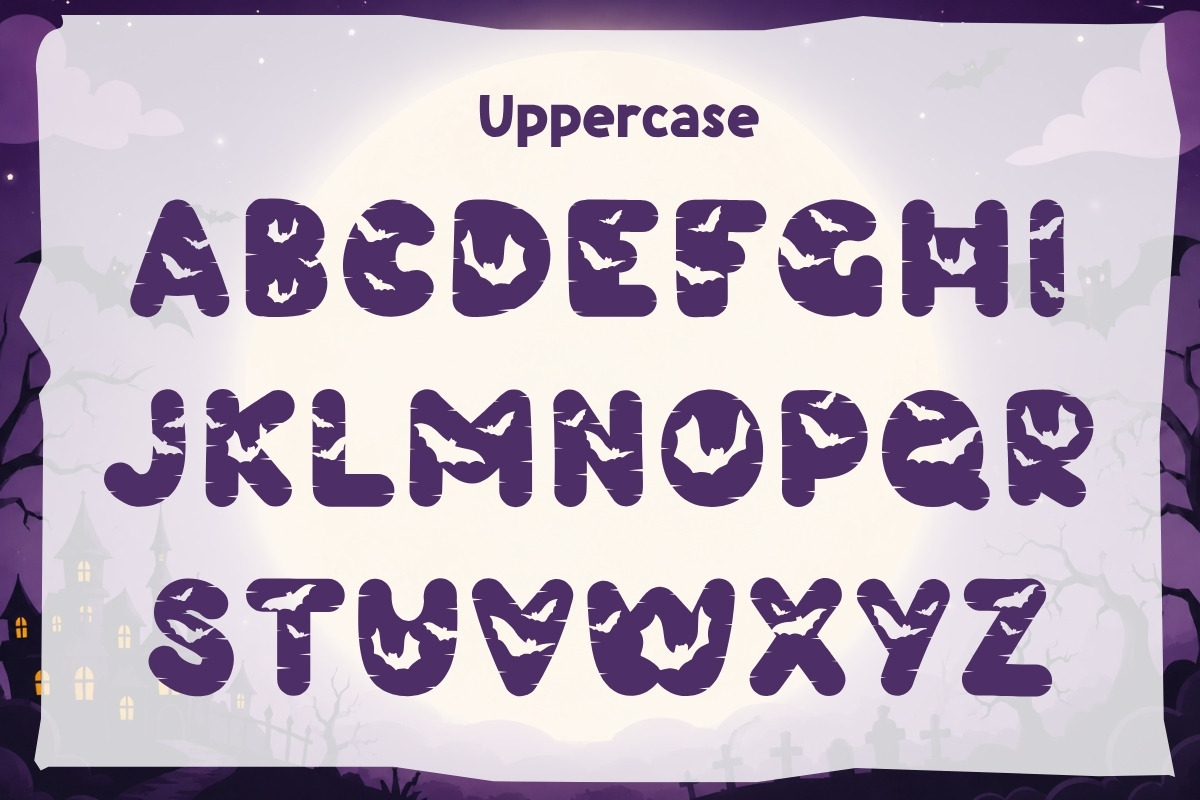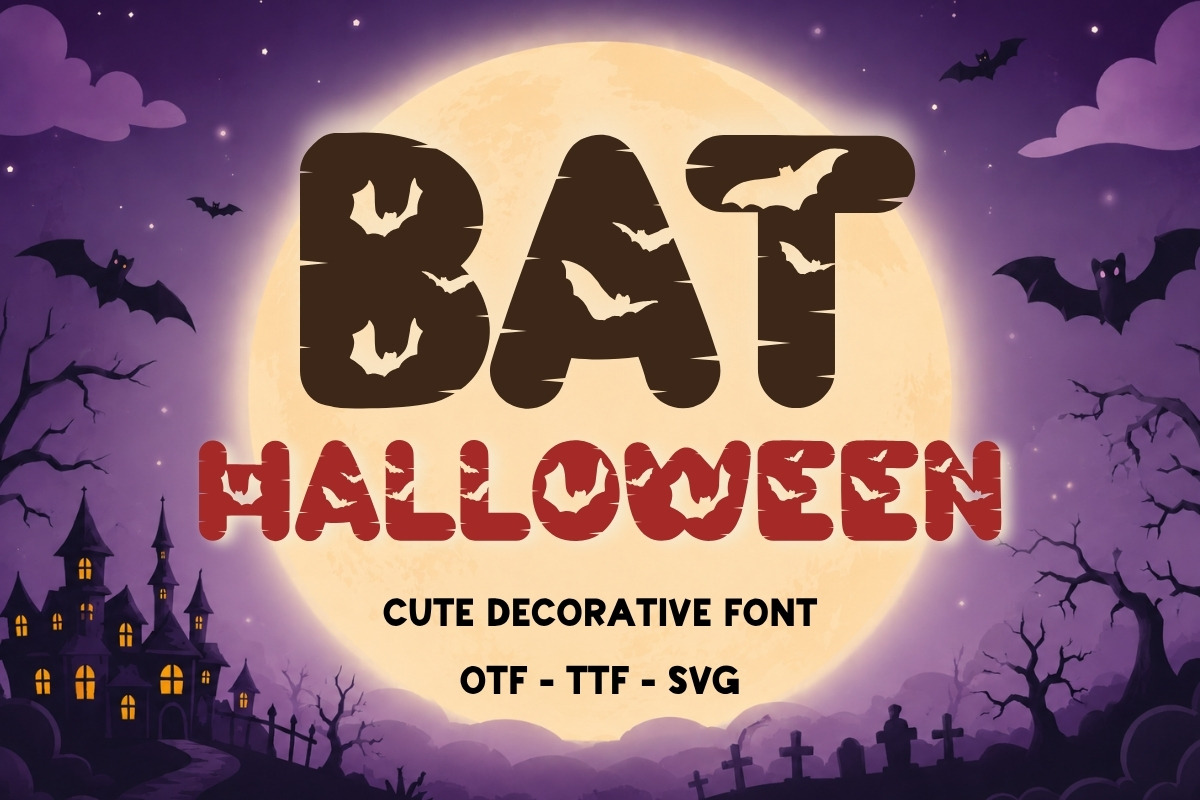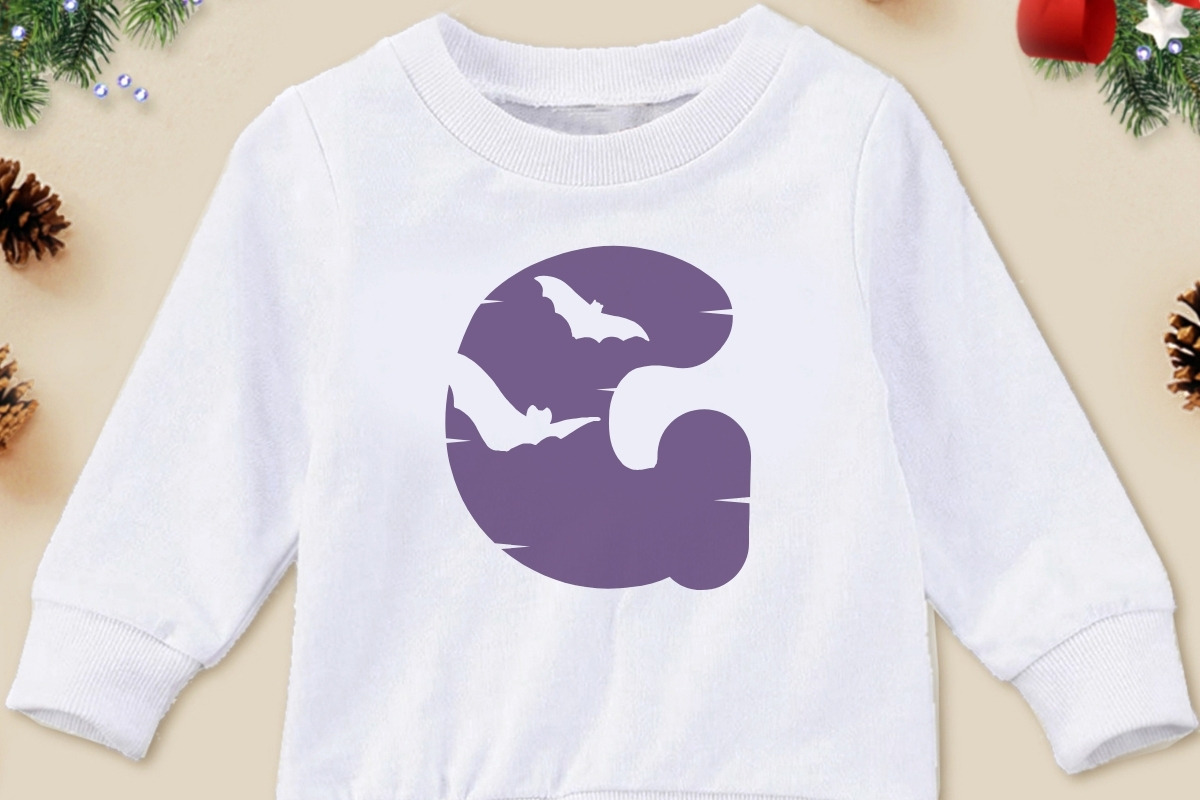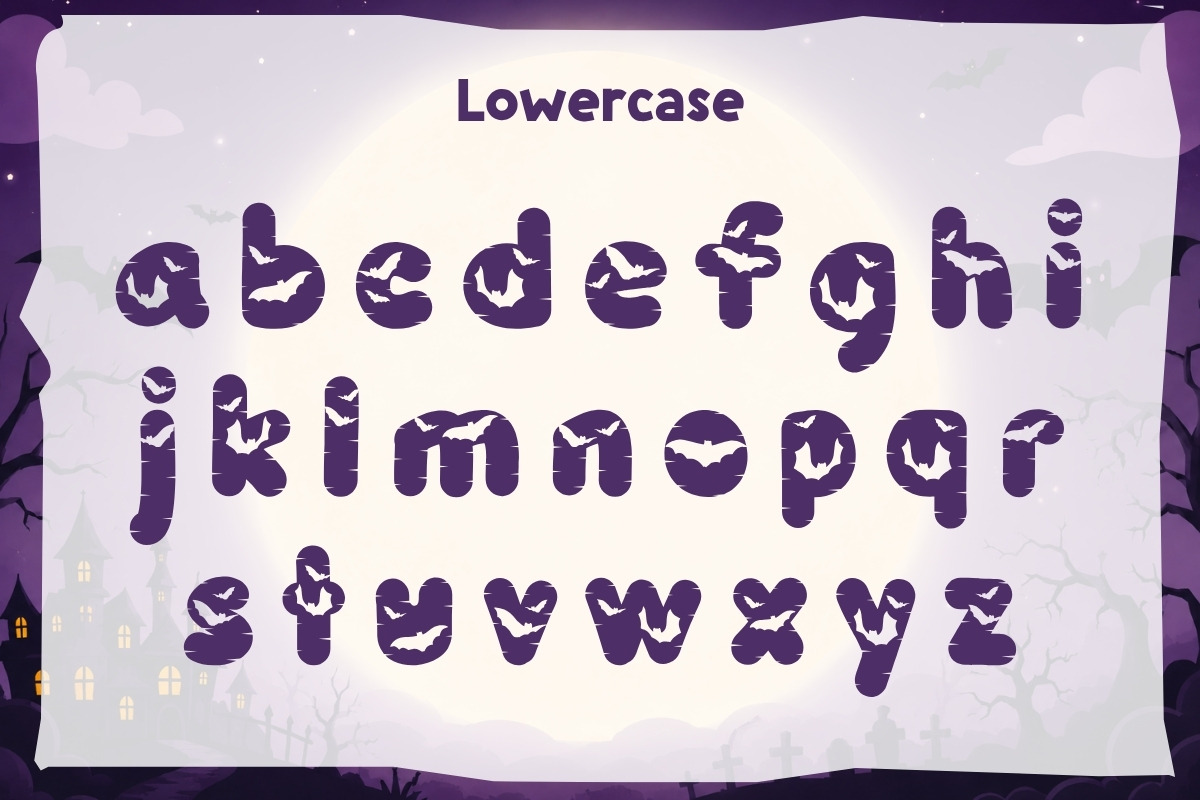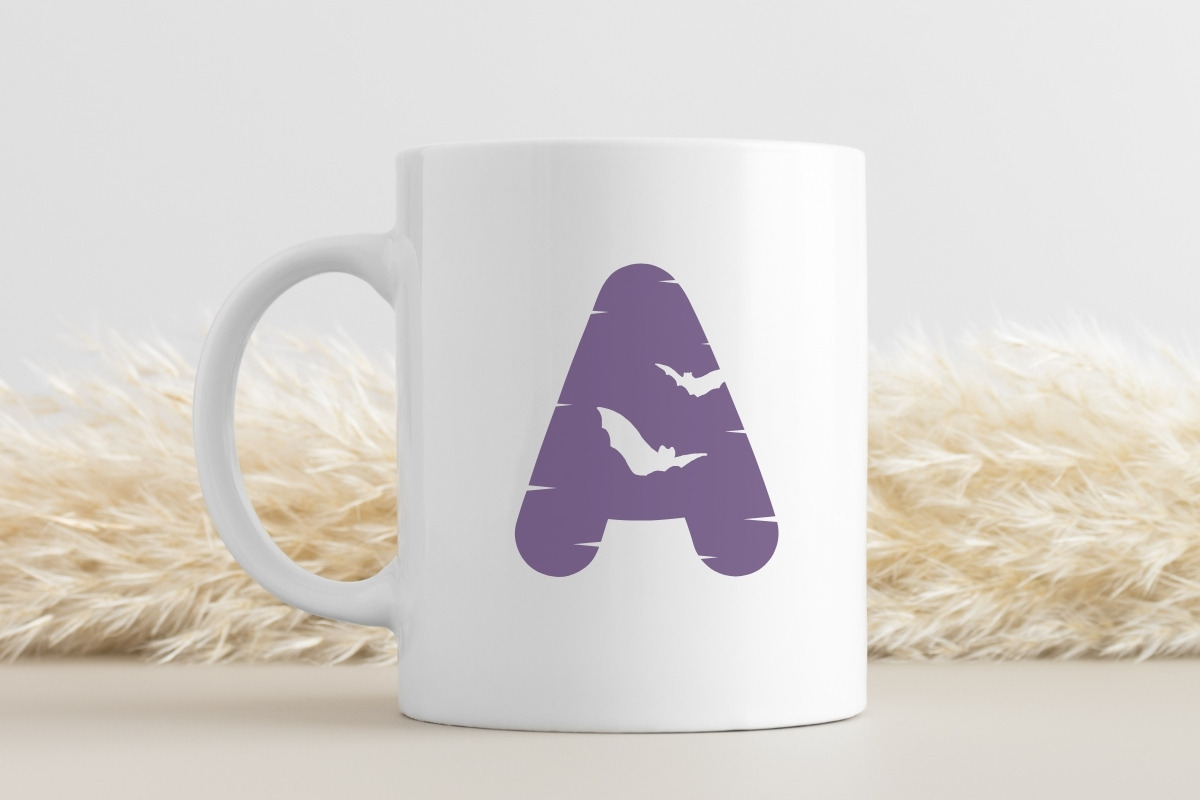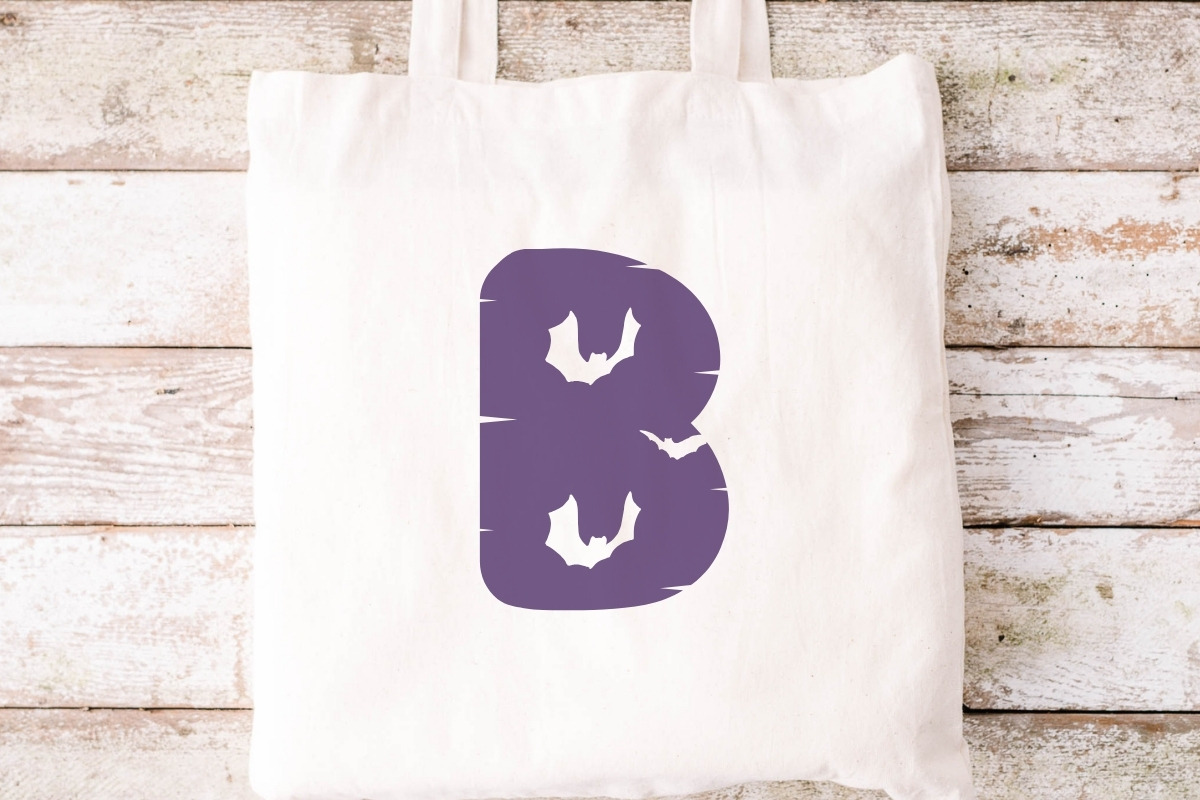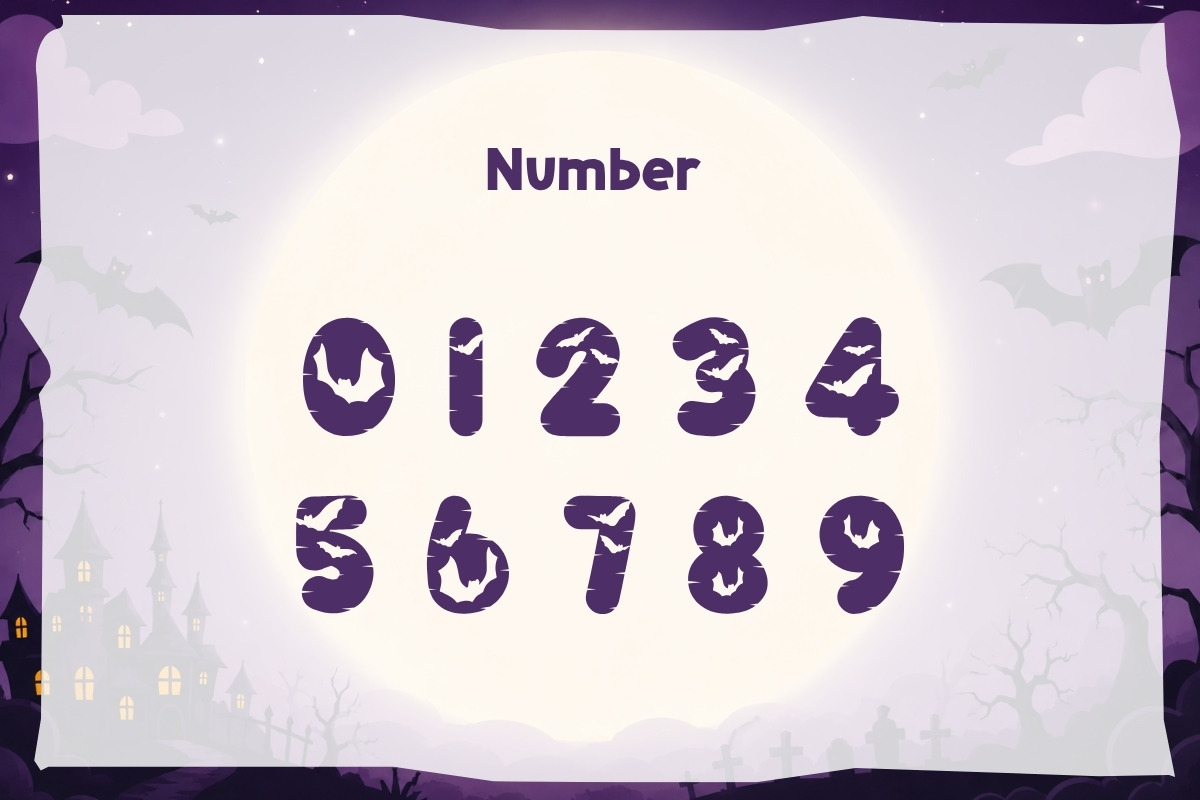
Bat Halloween - Decorative Font
Bat Halloween is a playful decorative display font inspired by spooky Halloween nights, flying bats, and fun seasonal crafts. Each character features bold rounded shapes with bat cutout details, giving your typography a unique Halloween style that is eye-catching, festive, and easy to use for both print and digital designs.